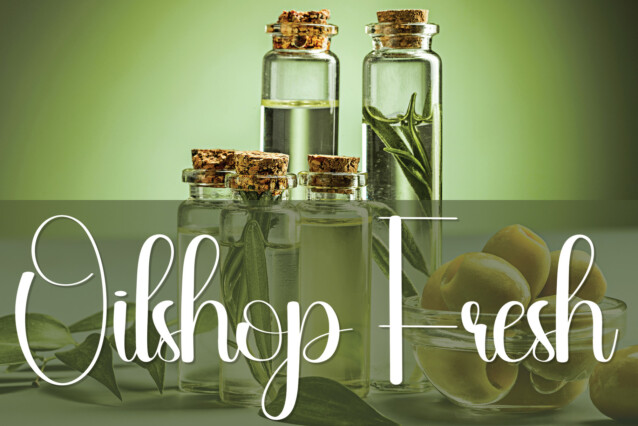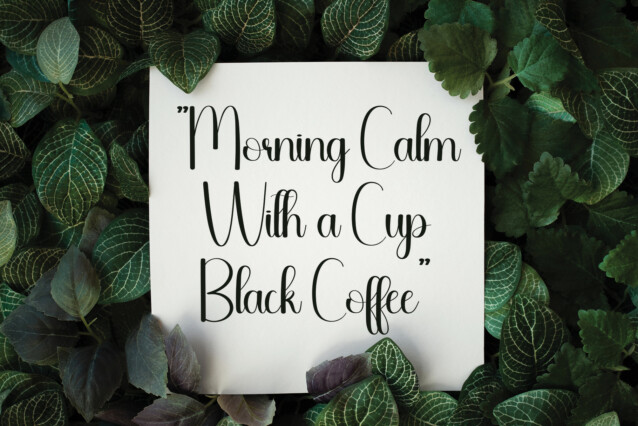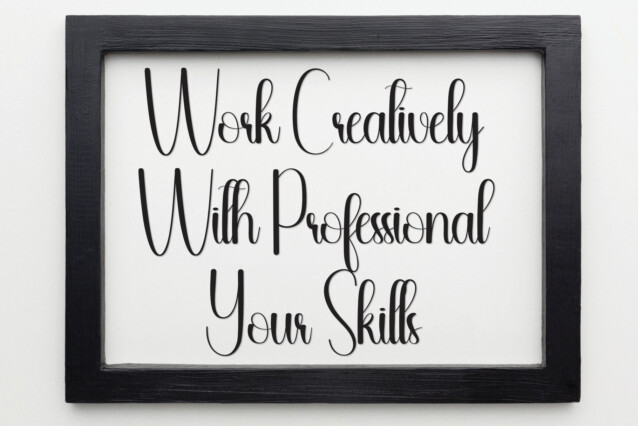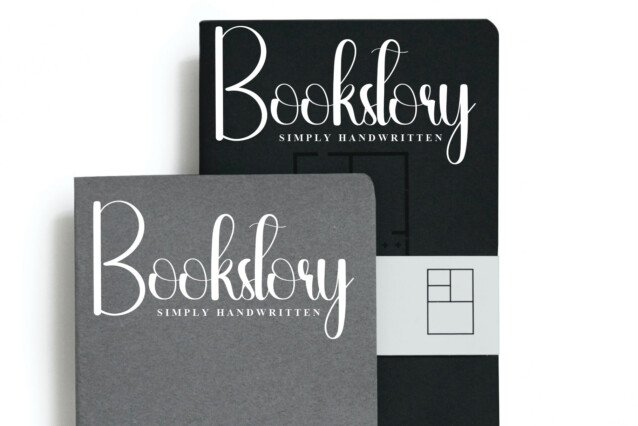
Honeymoon Script Typeface
Honeymoon Script Typeface is a sophisticated handwritten font. Its latest style letters are perfect for wall displays, wedding invitations, social media post logos, advertisements, product packaging, product designs, labels, photography, watermarks, invitations, stationery, and more.